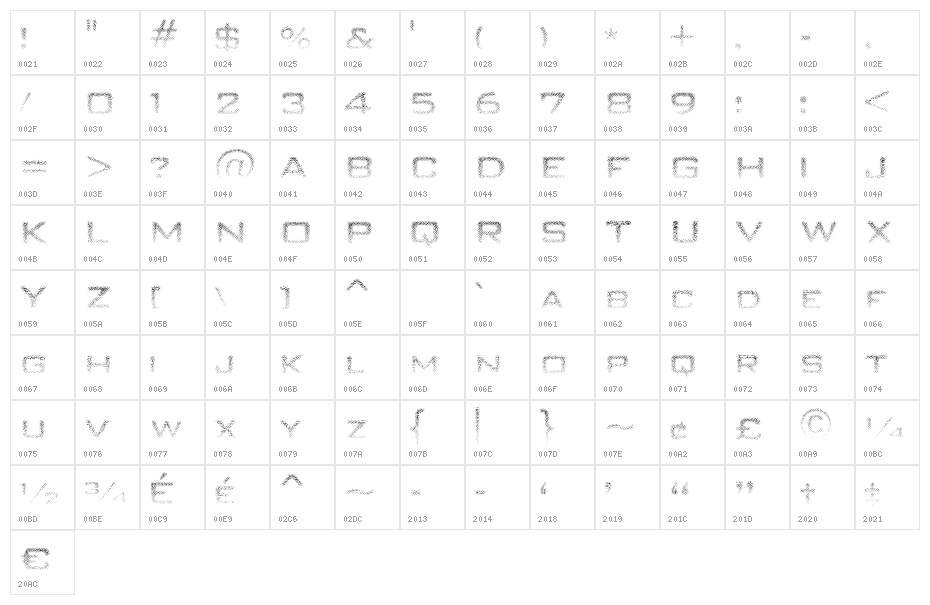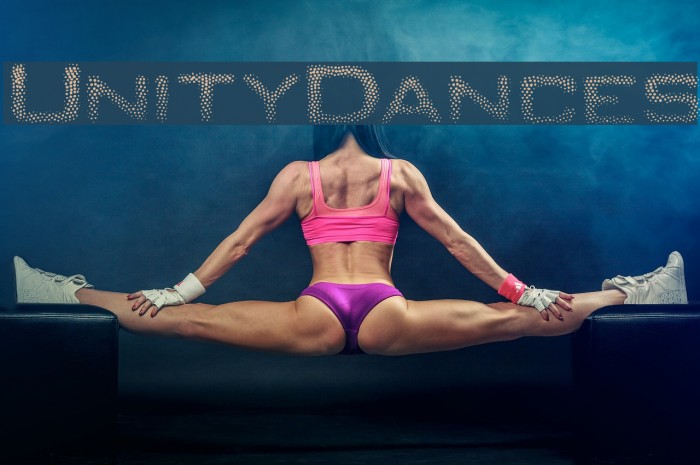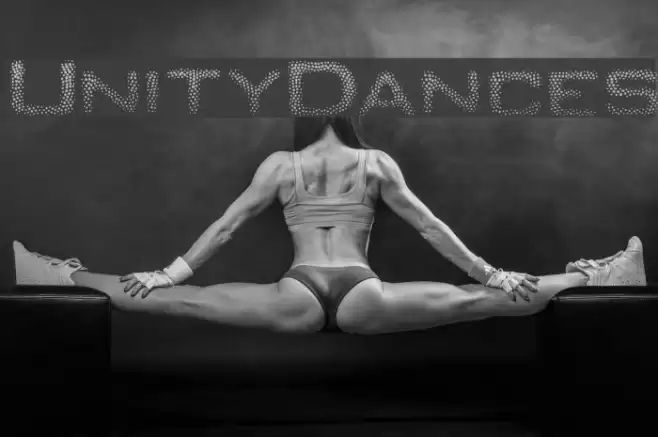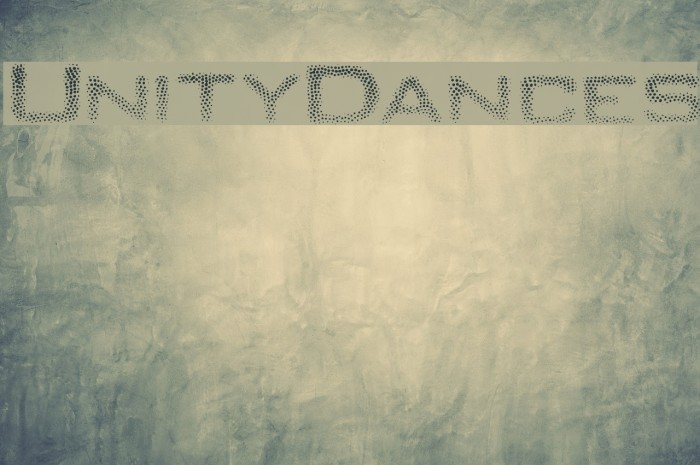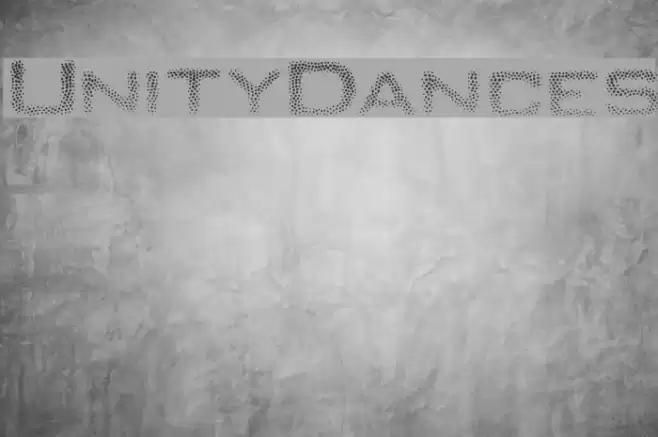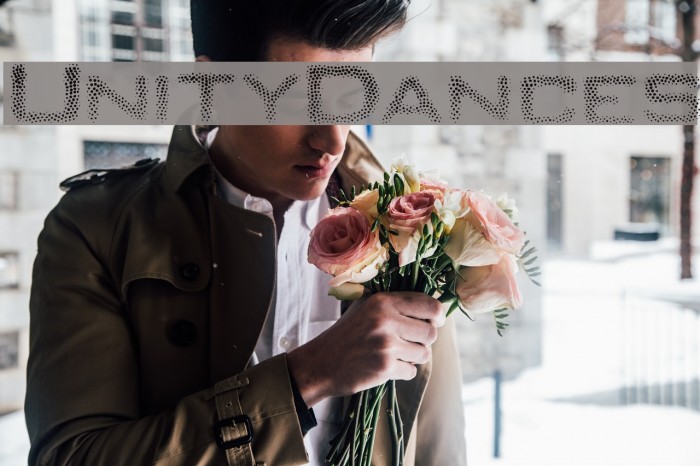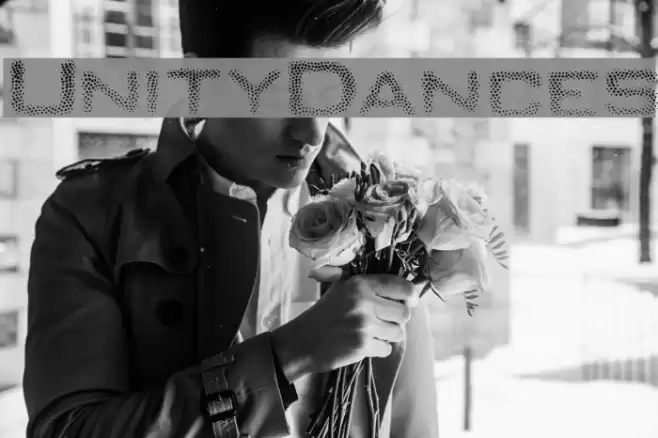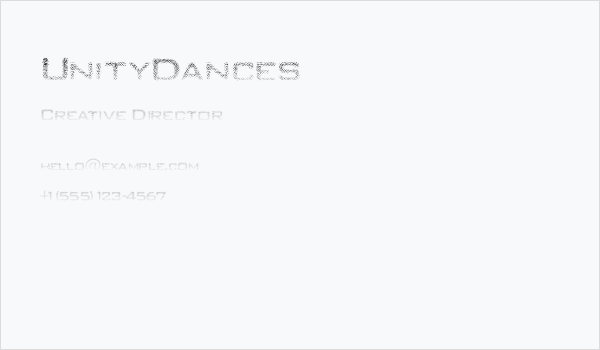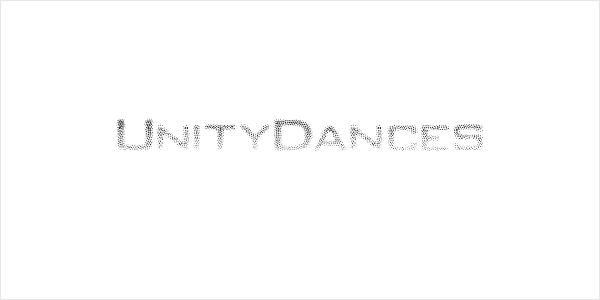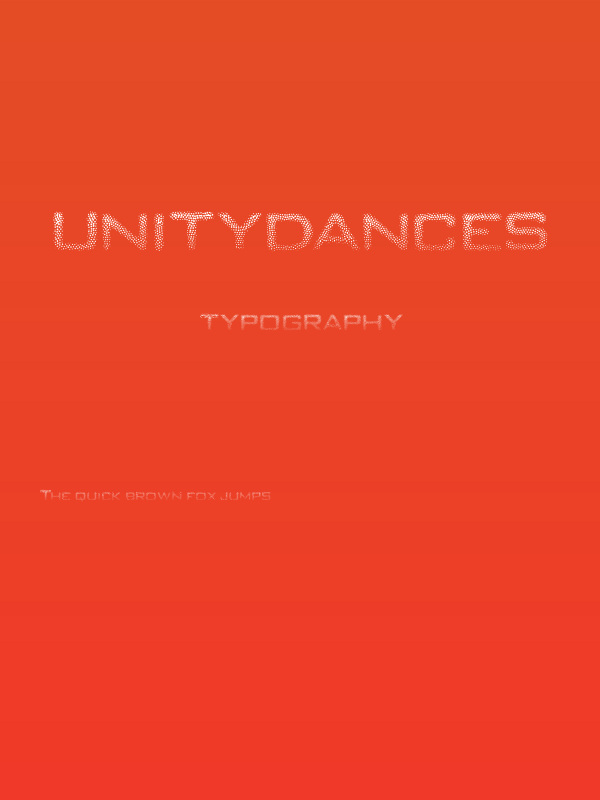
UnityDances Font
UnityDances Description
This font features a unique dotted pattern that creates a textured and dynamic appearance. Each character is composed of small dots that form the outlines, giving it a modern and digital feel. The uppercase and lowercase letters maintain a consistent style, with rounded edges and a balanced structure. The numerals and special characters follow the same design principle, ensuring uniformity across all glyphs. This font stands out due to its innovative use of dots, making it visually striking and suitable for creative projects.
Proposed ProjectsIdeal for digital art, tech branding, futuristic designs, and creative posters.